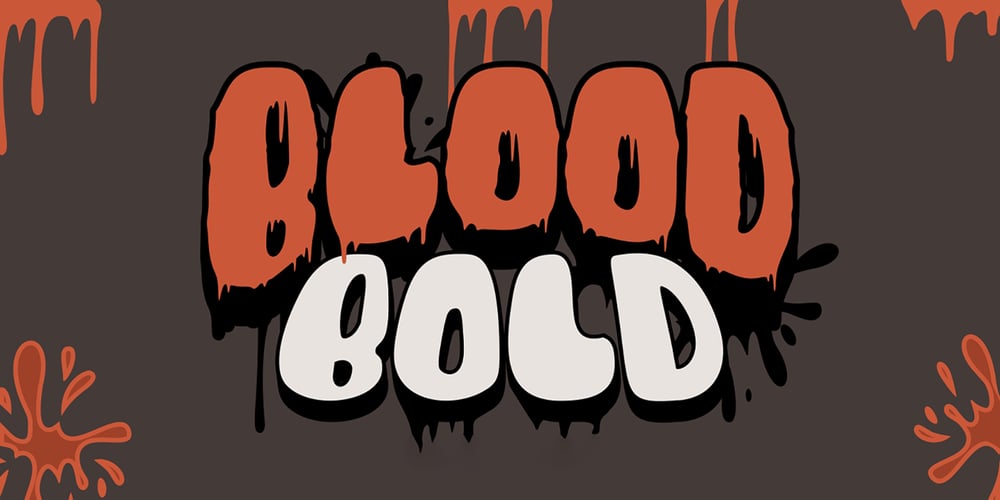
Blood Bold
Blood Bold font
Blood Bold Font Family was designed by Virgiawan Listanto and published by Stringlabs Creative Studio. Blood Bold contains 2 styles and family package options. Blood Bold is a bold display font, bloody perfect for all things Halloween! The Blood Bold font is a great choice to increase the prominence in your project. Although the typography is traditional, the basic elements are great.